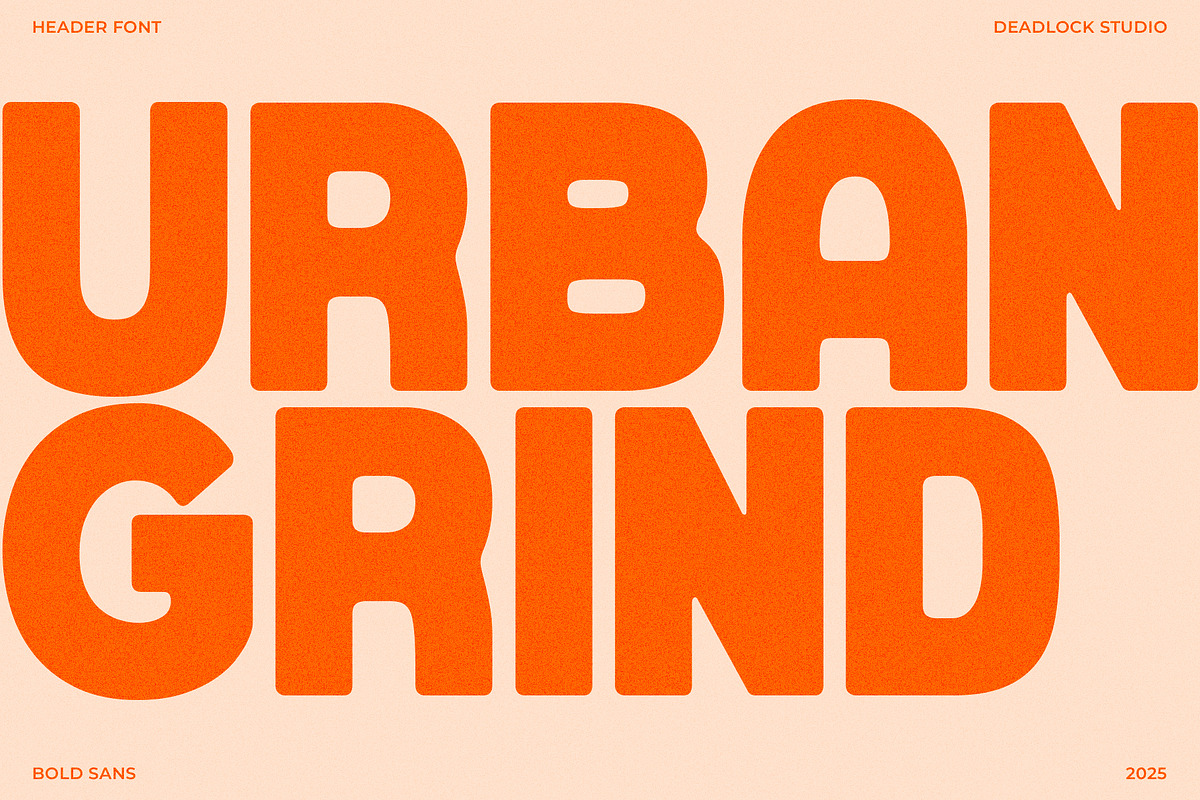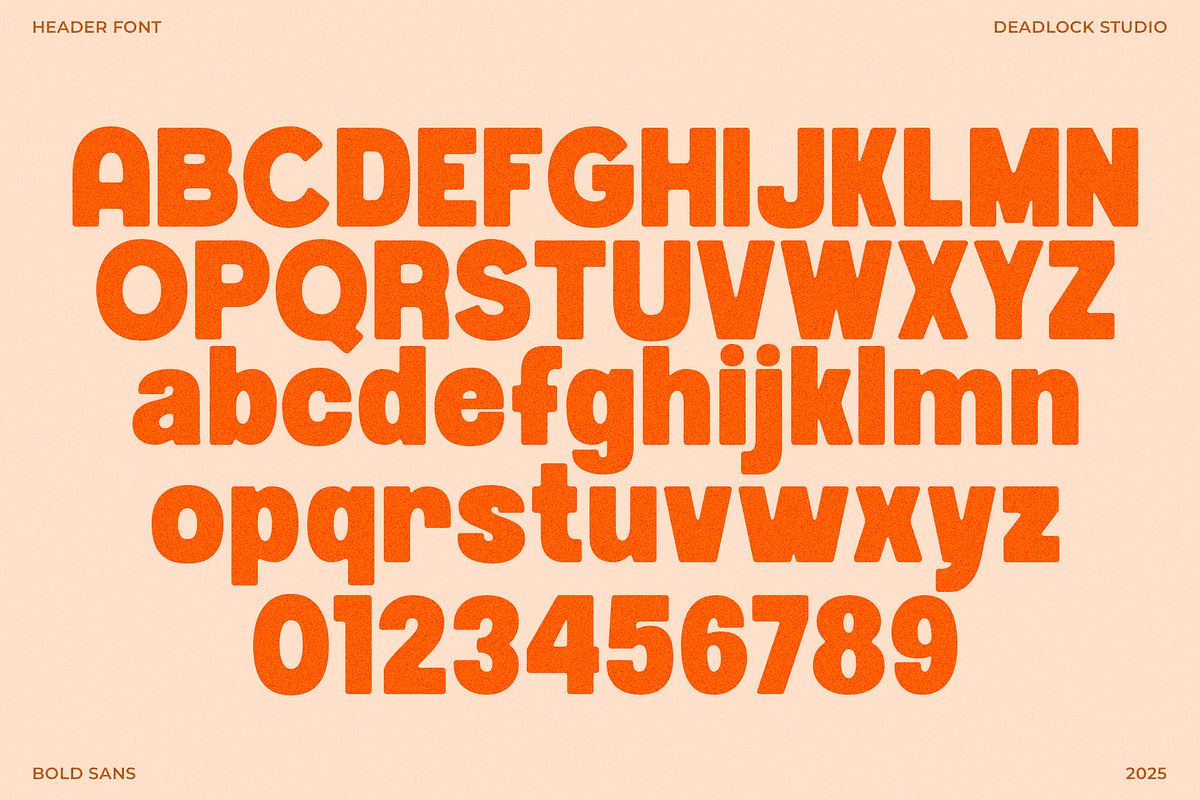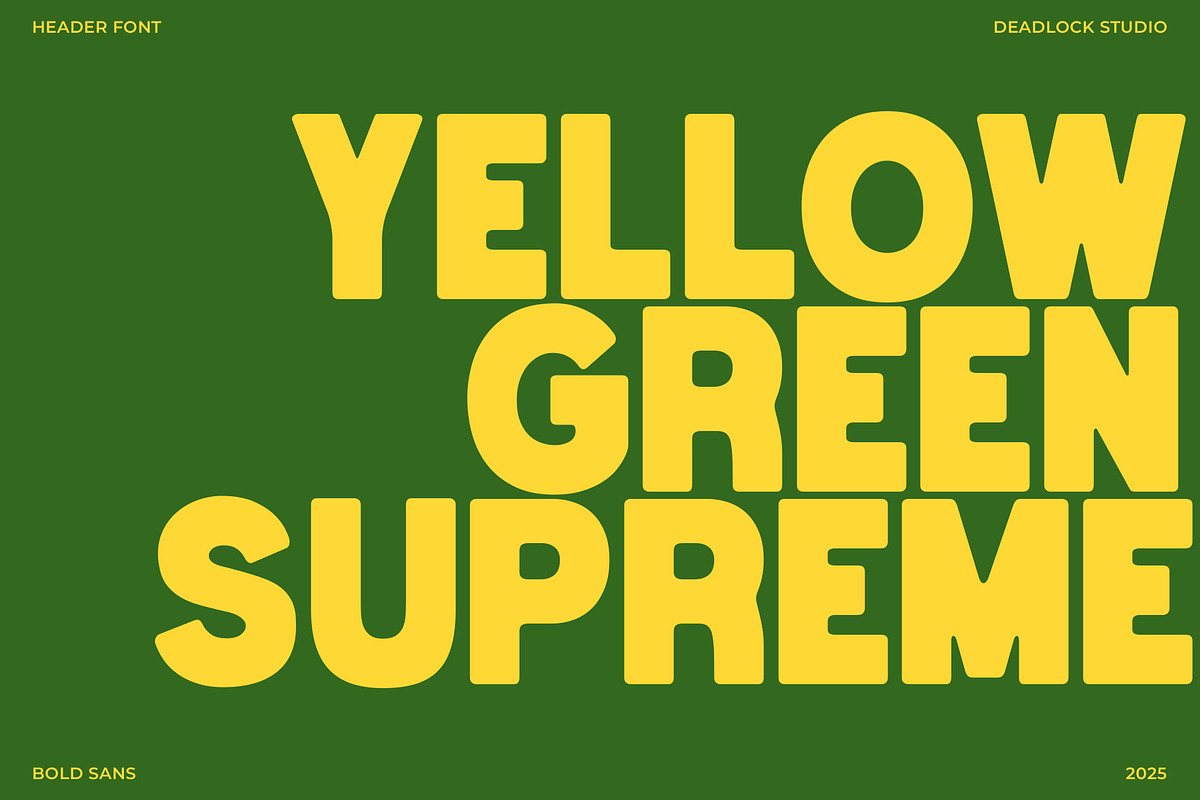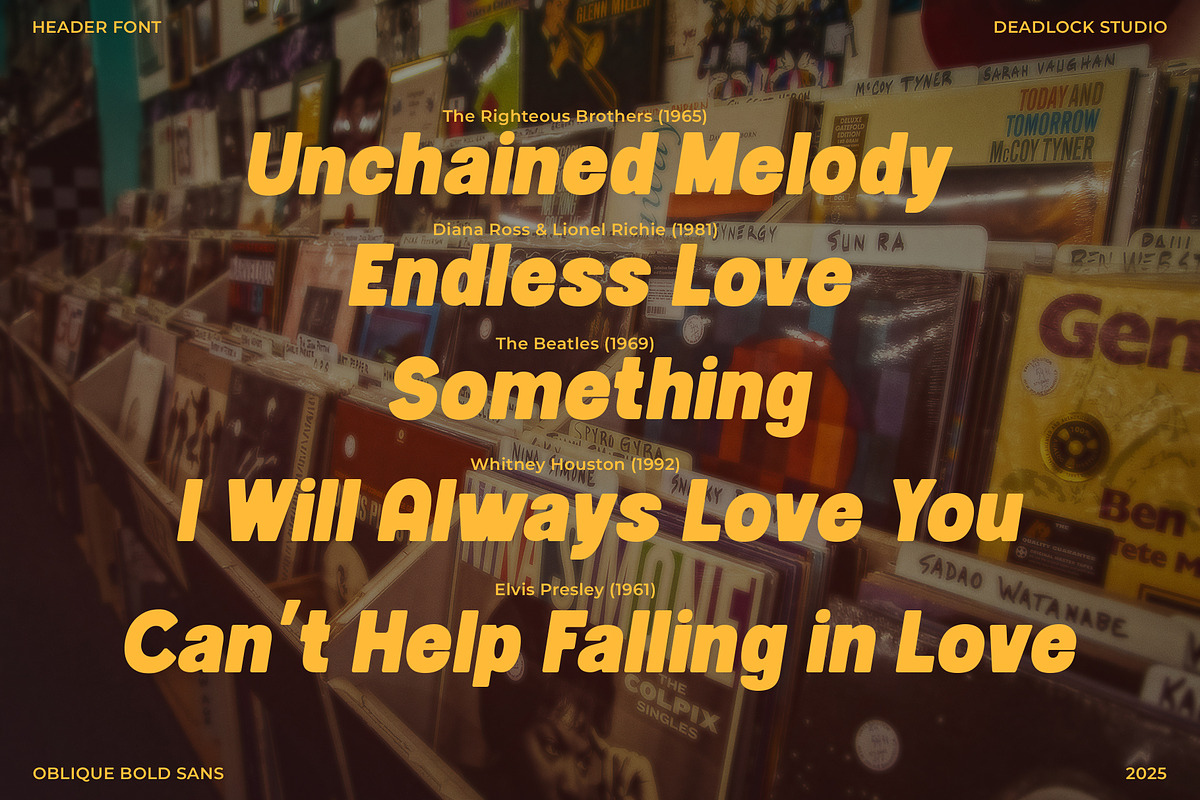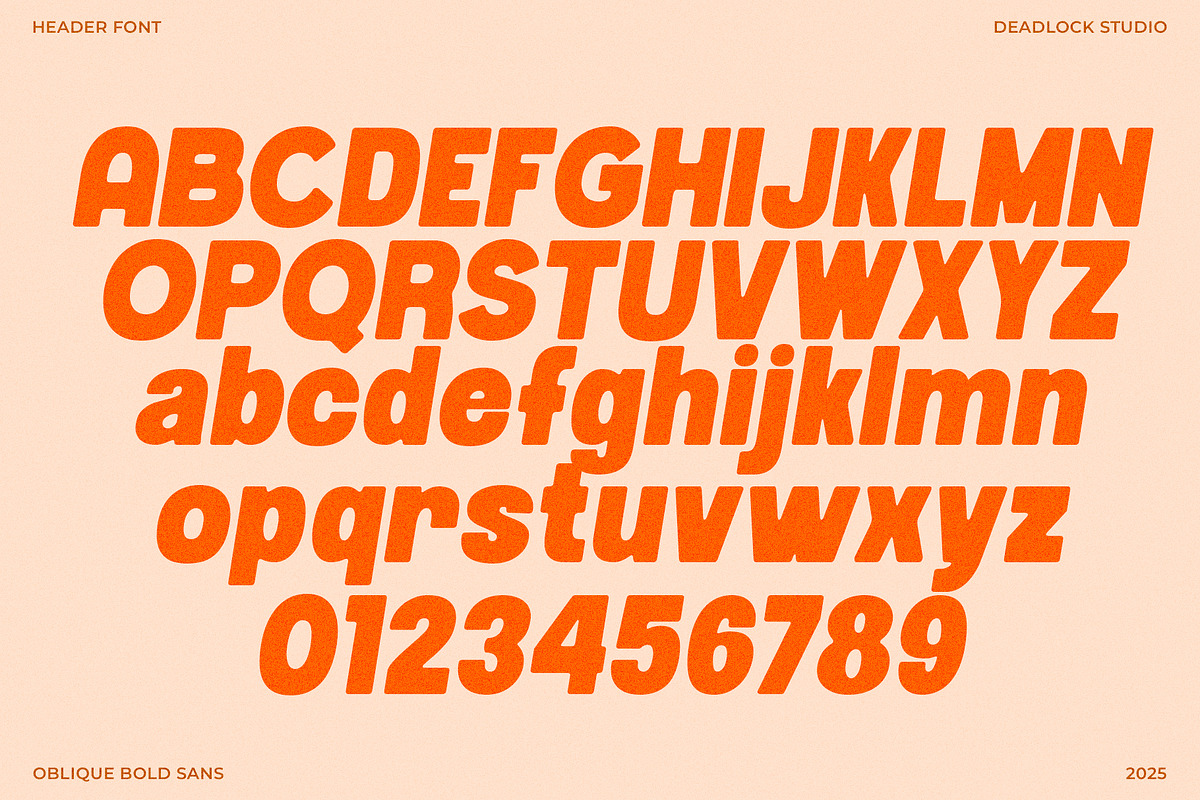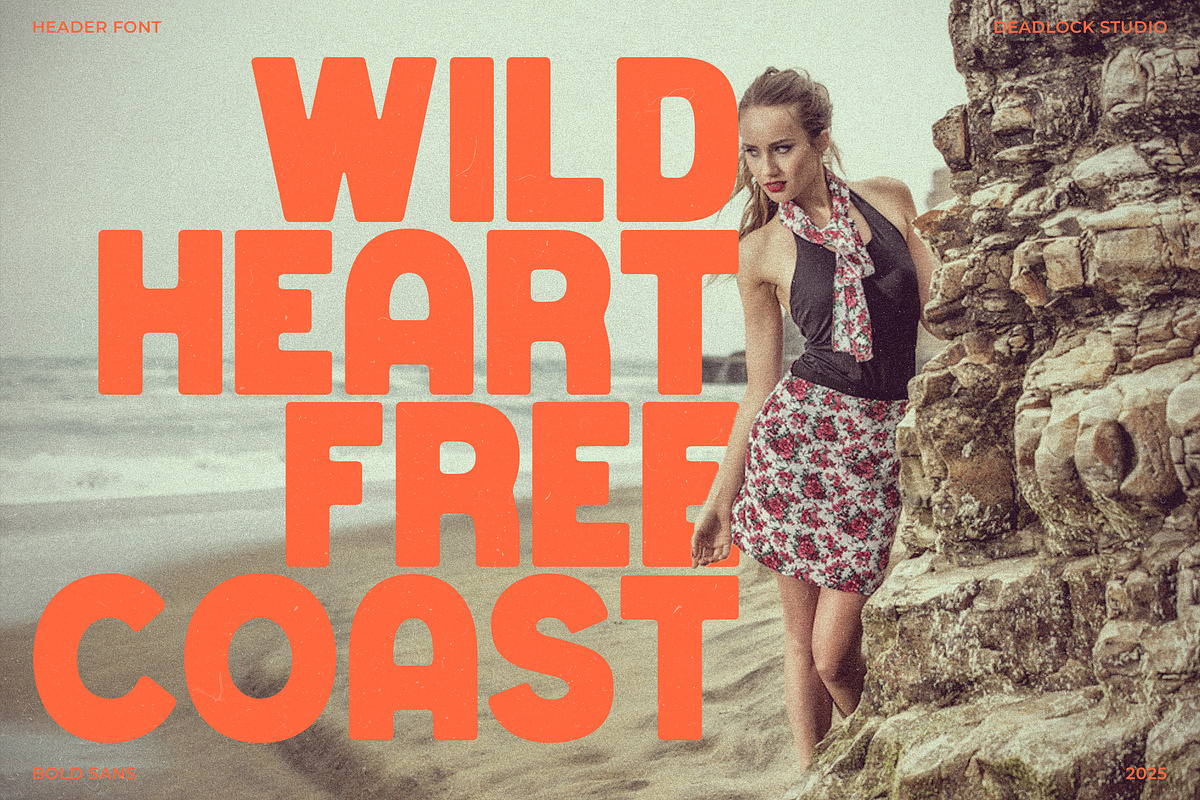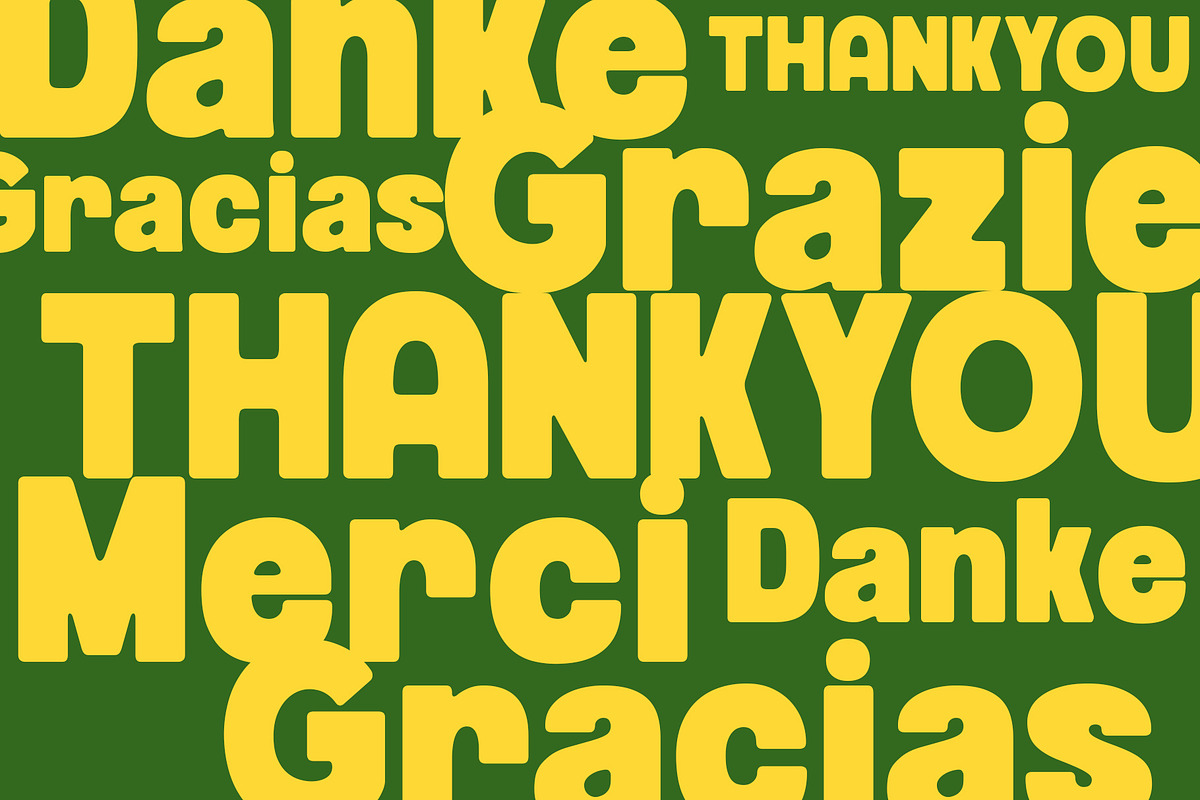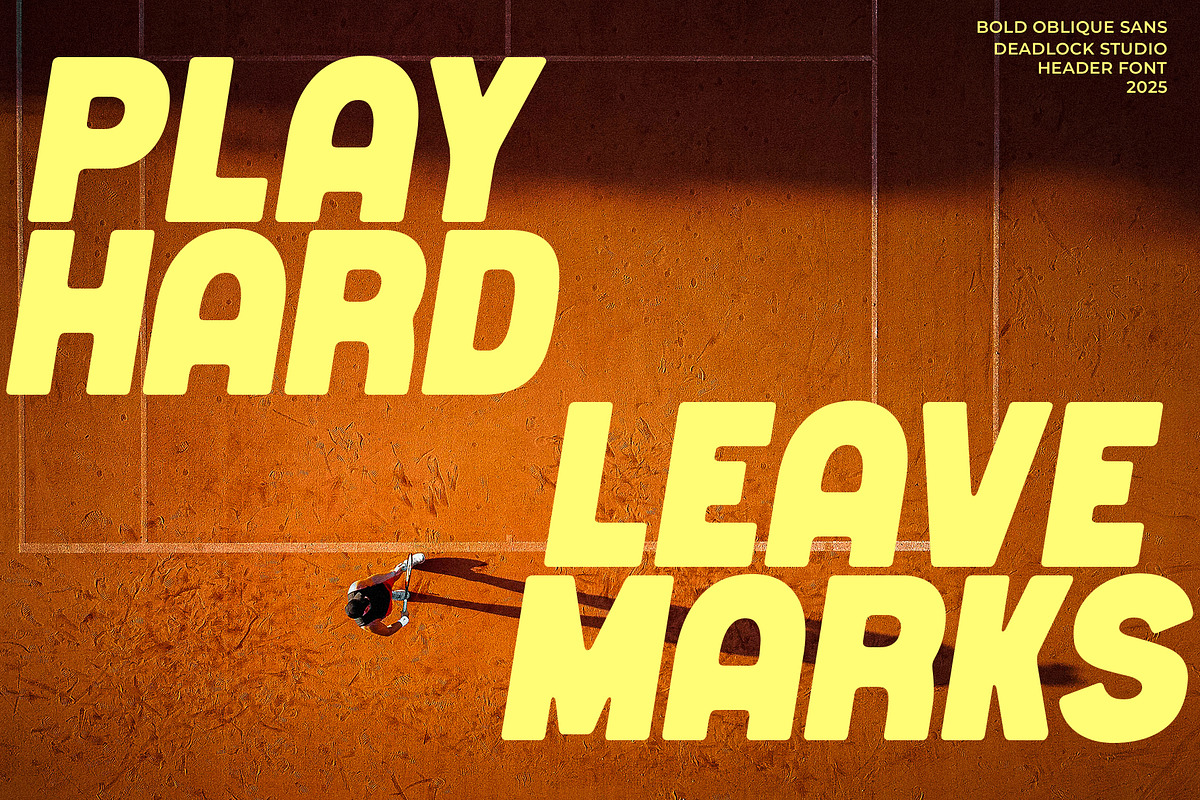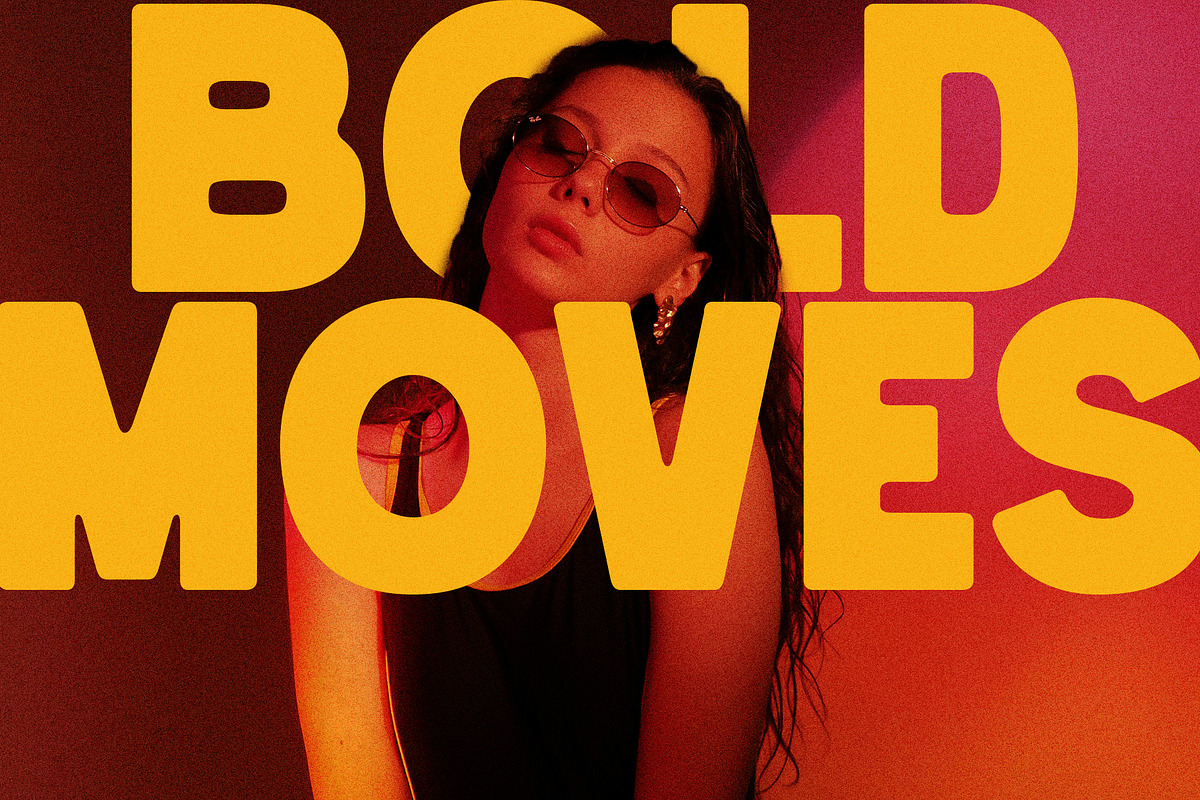
Urban Grind! Poster Font!
Urban Grind is a bold, clean, and minimalist sans-serif font designed for modern advertising, branding, and short impactful campaigns. Its strong lines and geometric shapes make your headlines and logos stand out, while maintaining readability and a sleek contemporary feel. Perfect for posters, social media graphics, or any design that needs a bold urban statement.
Features: Uppercase & lowercase, numbers, punctuation, and multilingual support.